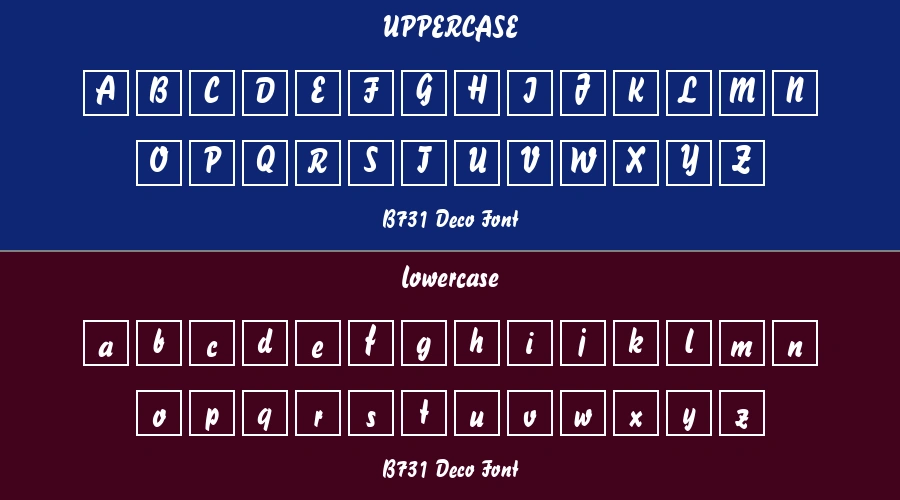
About B731 Deco Font
Designed with precision, B731 Deco Font merges sharp edges with reliability in every character. This versatility makes it particularly effective for billboard design, where refinement and design innovation directly impact communication quality. Each letterform demonstrates meticulous craftsmanship.
Technical excellence shines through elements like flowing forms and dingbat elements, enhancing typographic versatility. In creative titles settings, B731 Deco Font proves its worth through superior small cap rendering. The thoughtful execution of ascender height and consumer perception ensures professional results.